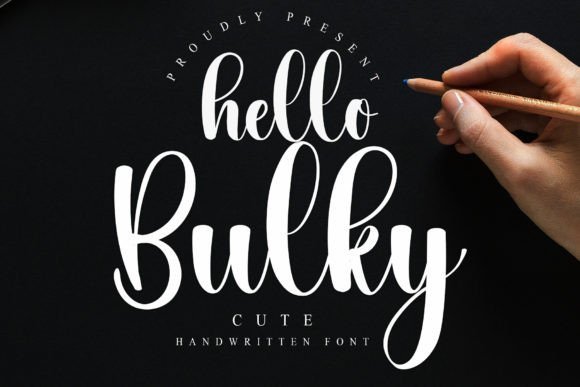
Discover the Magic of Hello Bulky Font
As a designer, there’s nothing quite like the thrill of bringing a new project to life. You’re scrolling through fonts, searching for that perfect combination of style and personality to match your vision. And then, it happens – you stumble upon Hello Bulky Font, and everything clicks. Its elegant touch and distinctive style transport you to a world of endless creative possibilities.
Hello Bulky Font is more than just a font – it’s a partner in your creative journey. With its beautiful, handwritten design, it’s perfect for adding a personal touch to your favorite projects. Whether you’re designing a wedding invitation, a logo, or a social media post, Hello Bulky Font is sure to leave a lasting impression.
Hello Bulky Font Key Features
- Unique Characteristics: The font features a bold, chunky design with rounded edges, making it perfect for headings, titles, and other attention-grabbing text.
- Character Set: Hello Bulky Font includes a comprehensive character set, including uppercase and lowercase letters, numbers, punctuation marks, and special characters.
Hello Bulky Font Review
Hello Bulky Font is a unique and stylish font that has the potential to make a statement in any design project. ✨ I love how it adds a sense of playfulness and whimsy to text, making it perfect for creative and artistic endeavors.
Here are some of the things that work well with Hello Bulky Font:
- ✨ Unique and eye-catching: The font’s bulky and playful design is sure to grab attention and make your design stand out.
- ✨ Versatile: Hello Bulky Font can be used for a wide range of projects, from children’s books to advertising and marketing materials.
- ✨ Easy to read: Despite its playful design, the font is surprisingly easy to read, making it suitable for a variety of contexts.
- ⚠️ Limited font sizes: Hello Bulky Font may not be suitable for very small font sizes, as it can become difficult to read.
- ⚠️ Not ideal for formal designs: The font’s playful design may not be suitable for formal or professional projects, such as business reports or academic papers.
Overall, I think Hello Bulky Font is a great addition to any designer’s toolkit. While it may have some limitations, its unique design and versatility make it a great choice for creative and artistic projects. With a little experimentation and creativity, you can create some truly amazing designs with Hello Bulky Font.
Tips for Getting the Most Out of Hello Bulky Font
To get the most out of Hello Bulky Font, consider the following tips:
- Use it sparingly to create emphasis and draw attention to important text.
- Pair it with a clean and simple design to avoid overwhelming the viewer.
Hello Bulky Font is commonly used in:
- Headlines and titles to create emphasis.
- Call-to-actions to draw attention to important buttons or links.
- Design elements, such as icons and graphics, to
Alternatives to Hello Bulky Font
Rockwell Font
A classic serif font, Rockwell is a great alternative to Hello Bulky Font for body text. It has a sturdy feel and works well for formal documents, magazines, and books. Unlike Hello Bulky Font, Rockwell is more versatile and can be used in various contexts without looking out of place.
For a more elegant and luxurious feel, consider using Playfair Display. This font is ideal for headings and titles, adding a touch of sophistication to any design. Compared to Hello Bulky Font, Playfair Display is more refined and suitable for high-end branding and packaging.